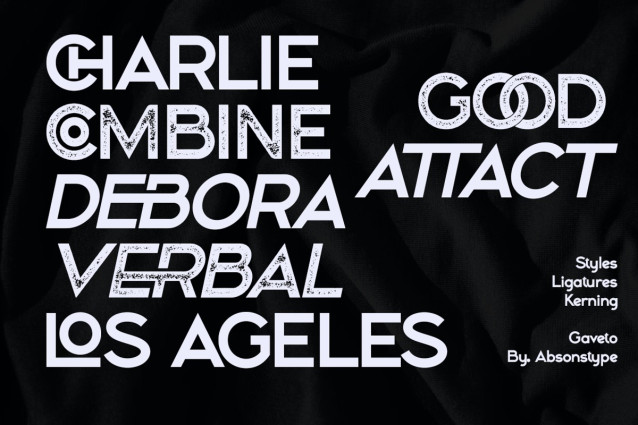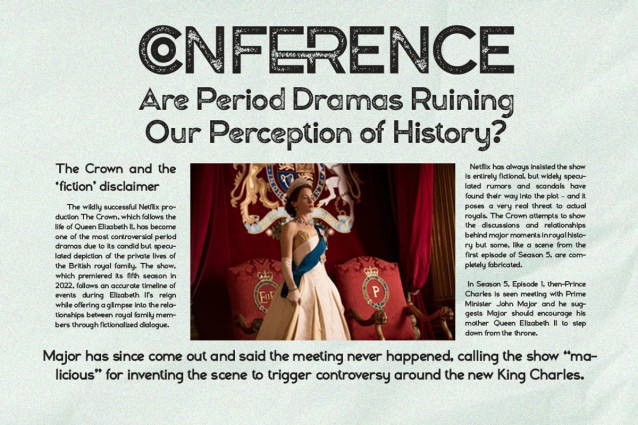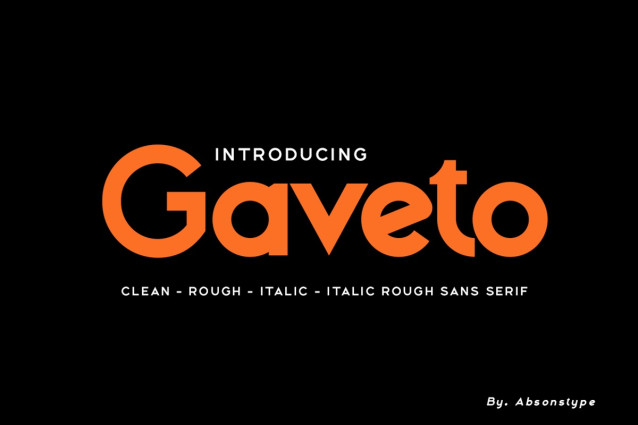
Gaveto Rough Font
Gaveto Rough Font is the Geometric Sans Serif with 2 styles (Clean and Rough) with combine uppercase and lowercase looks and feel nice balanced. Provide with ligatures in Uppercase variant style make the design letter looks nice. Honestly it works perfectly for headlines, logos, posters, packaging, T-shirts and much more.